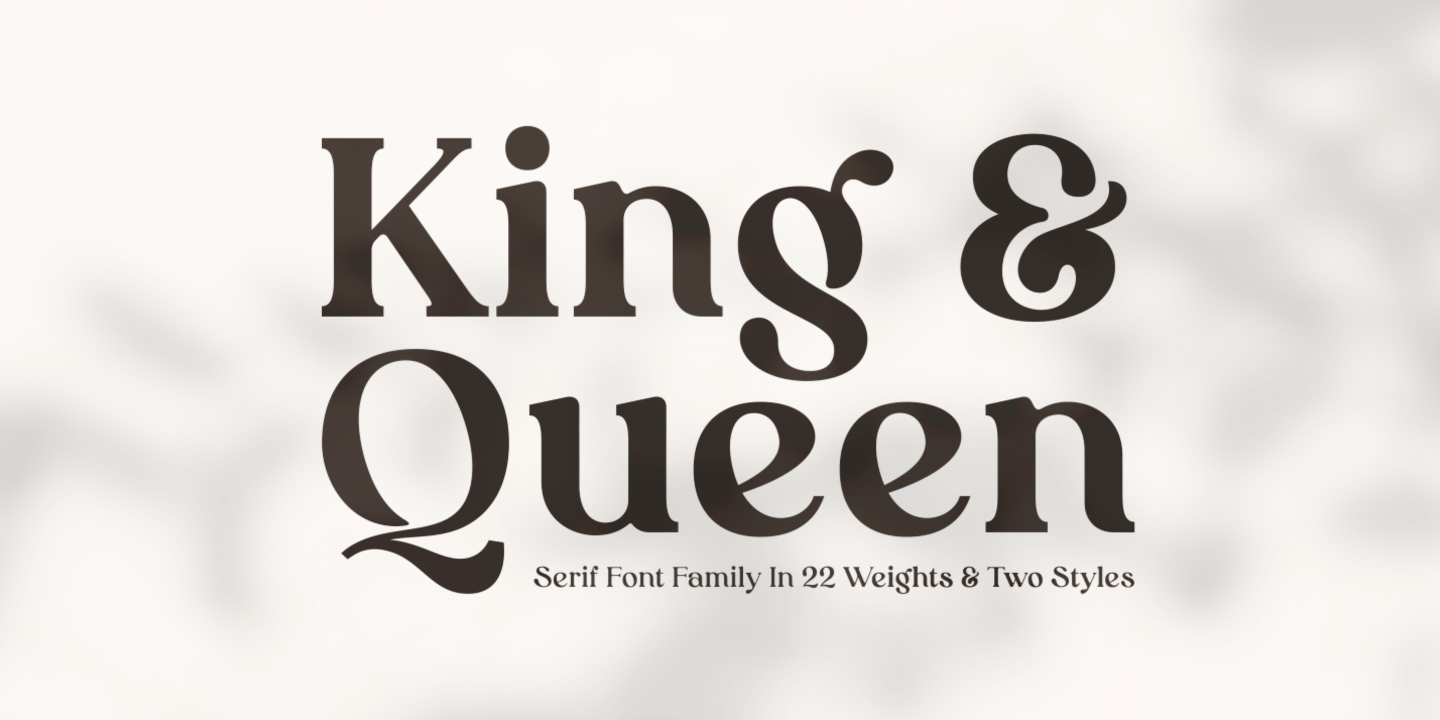
King and Queen Font is perfect for luxury wedding invitations, royal-themed event materials, prestigious award ceremonies, high-end jewelry branding, elegant anniversary celebrations, sophisticated hotel identities, exclusive monarchy-inspired products, and distinguished nobility-themed communications.
What makes King and Queen Font truly exciting is its majestic ability to embody the ultimate expression of royal elegance and sovereign authority through magnificently crafted letterforms that capture the timeless grandeur and regal sophistication of monarchical tradition. This distinguished typeface features ornate characteristics with noble flourishes that instantly convey luxury, prestige, and imperial magnificence, making it the perfect choice for brands and events that celebrate the highest levels of elegance, demand royal treatment, and communicate with audiences who appreciate the finest expressions of aristocratic refinement and ceremonial grandeur.
The King and Queen Font family includes regular, light, bold, and ornamental variations, complemented by royal crowns, regal ornaments, and monarchical alternates that enhance the sovereign atmosphere, providing designers with comprehensive tools for creating imperial brand experiences and majestic communications that resonate with luxury-minded audiences seeking royal sophistication.
Luxury event planners and prestigious brands will discover that King and Queen Font Free Download transforms ordinary occasions into extraordinary royal celebrations that create unforgettable experiences for discerning clientele who expect nothing less than monarchical treatment. This versatile typeface excels in both intimate luxury applications and grand ceremonial displays, maintaining its regal character while delivering maximum imperial impact across all sovereign contexts.
The font's royal construction demonstrates exceptional attention to both aristocratic authenticity and luxurious presentation, with perfectly balanced proportions that ensure commanding presence while maintaining elegant readability in formal settings. From palace-worthy invitations to luxury brand identities, this majestic typeface maintains its sovereign appeal while providing the sophistication needed for comprehensive royal brand systems. Luxury brands appreciate how this font effortlessly communicates nobility, magnificence, and distinguished American appreciation for royal design excellence through superior monarchical typography.